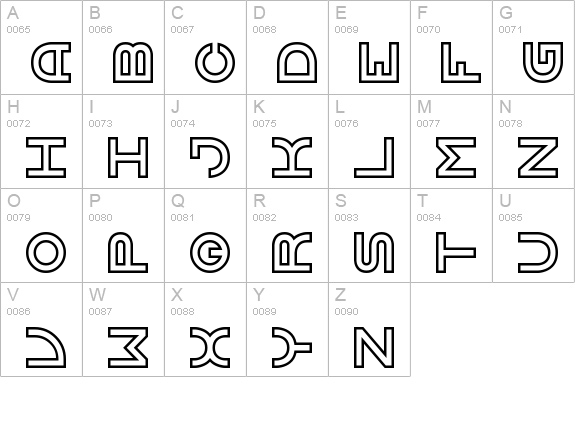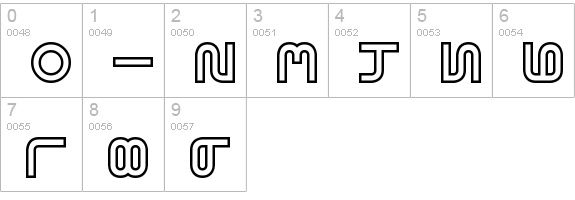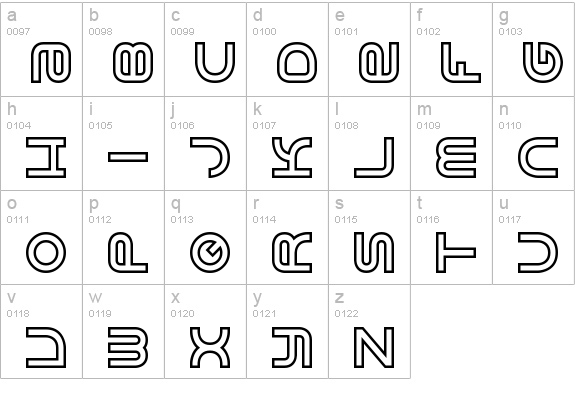
Vertigo BRK Font Details
Vertigo BRK is a captivating and modern font that exudes a sense of energy and movement. With its unique and eye-catching design, this font is perfect for adding a touch of excitement to any project. Its bold and dynamic letterforms create a sense of motion, making it an ideal choice for logos, headlines, and other attention-grabbing designs. What sets Vertigo BRK apart is not only its striking appearance but also its availability as a free font. That's right, this font can be freely downloaded from FontsMarket.com, allowing designers and enthusiasts alike to access its captivating style without any cost. This accessibility makes it an excellent choice for those working on projects with limited budgets or individuals who simply appreciate the value of free resources. With its versatility and availability, Vertigo BRK offers endless possibilities for creativity. Whether you're designing a website, creating a poster, or crafting a social media graphic, this font will effortlessly enhance your work with its unique flair. Its bold and energetic nature will capture attention and leave a lasting impression on your audience. Don't miss out on the opportunity to add Vertigo BRK to your font collection. Visit FontsMarket.com today and discover the power of this captivating font, freely available for download. With Vertigo BRK, you can elevate your designs and bring them to life with a touch of excitement and enthusiasm.